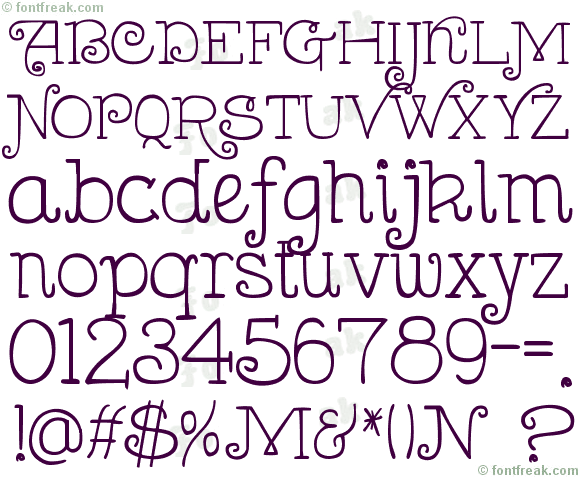
DJB Holly Berry Wonderland is a charming handwritten typeface designed by Darcy Baldwin, perfect for adding a whimsical touch to any project. This decorative font features fluid, organic strokes that create a friendly and inviting vibe. The playful curves and loops of the letters give it a unique character, making it a delightful choice for designs that require a personal touch. The font showcases a consistent stroke weight, ensuring legibility while maintaining its artistic flair. The spacing between characters is thoughtfully arranged, enhancing readability without sacrificing style.
This font is ideal for a variety of creative applications. It's particularly well-suited for wedding invitations, where its romantic and festive qualities can help set the tone for a special day. Additionally, DJB Holly Berry Wonderland works wonderfully on holiday greeting cards, bringing a cheerful spirit to seasonal greetings. Small business owners can utilize this font for branding elements, such as menu designs for cafes or restaurants, adding a warm and approachable feel to their offerings. Content creators can also leverage this typeface for blog headers or social media graphics, allowing their posts to stand out in a crowded digital landscape.
The target audience for this font includes graphic designers, small business owners, and content creators seeking to infuse their projects with personality and charm. The free availability of the DJB Holly Berry Wonderland font free download makes it accessible for anyone looking to enhance their design toolkit.
What truly sets DJB Holly Berry Wonderland apart is its delightful blend of elegance and playfulness, making it a versatile choice for projects that aim to evoke joy and warmth. Whether you're crafting a special invitation or designing a branding element, this font adds a unique touch that resonates with audiences of all ages.